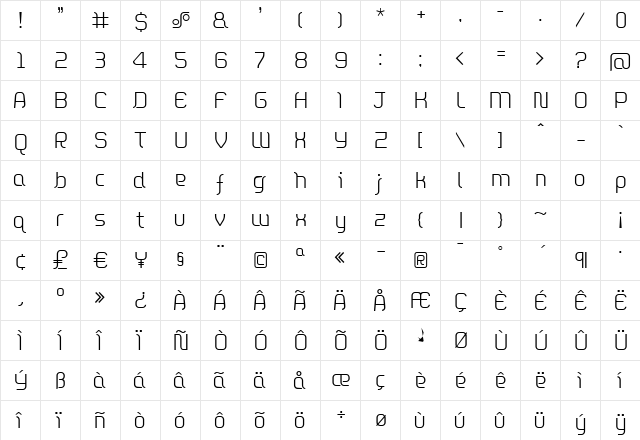
DieppeLight Regular
Design Context for DieppeLight Typeface
DieppeLight takes a measured approach to typography — its balanced proportions and neutral character make it a reliable workhorse for both digital and print work. The delicate stroke weight brings airiness and refinement to layouts.